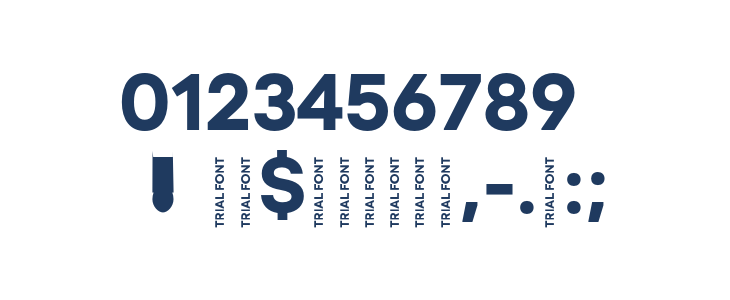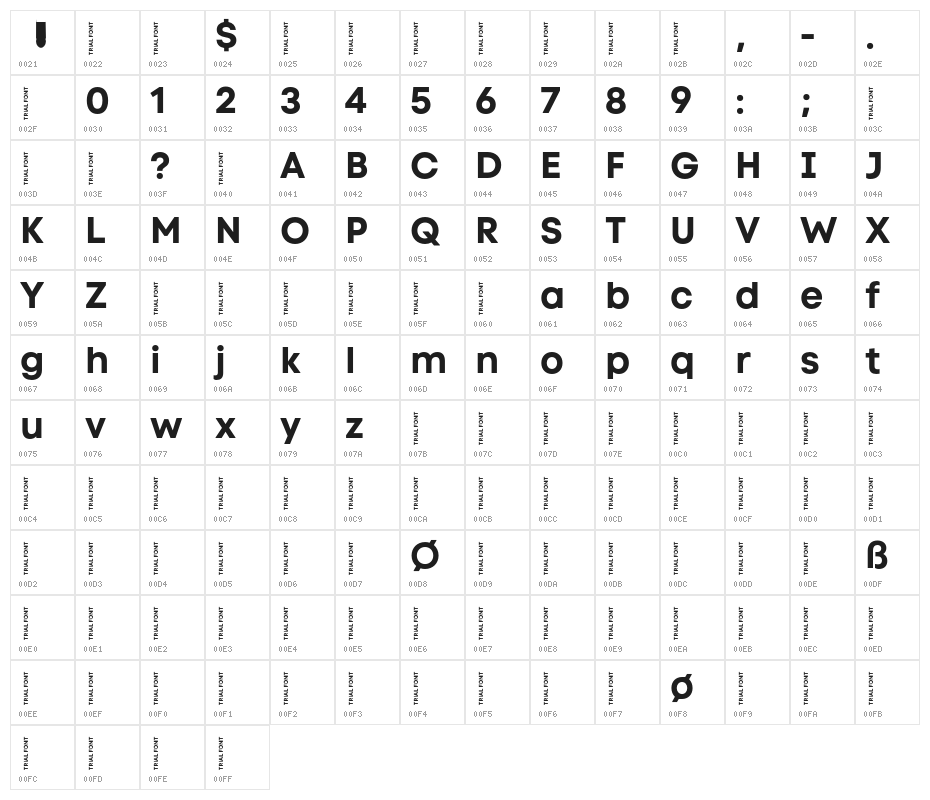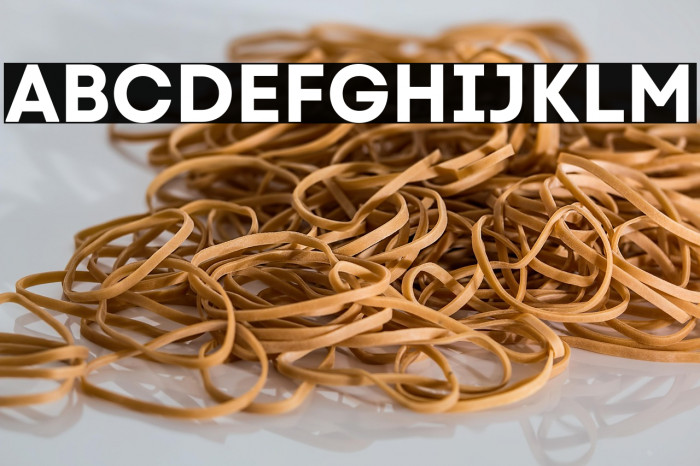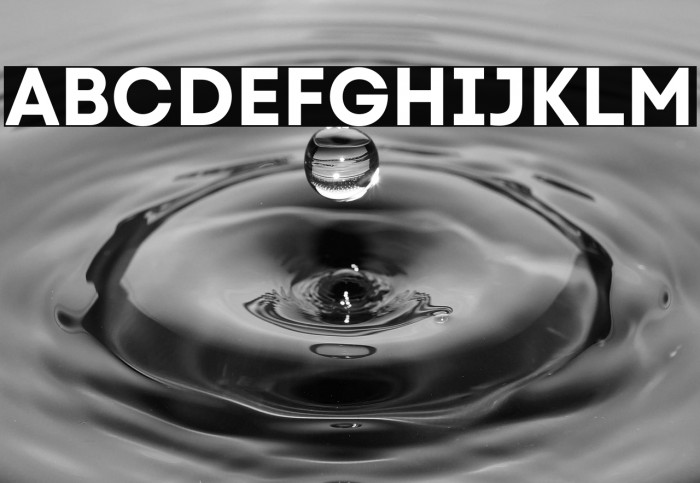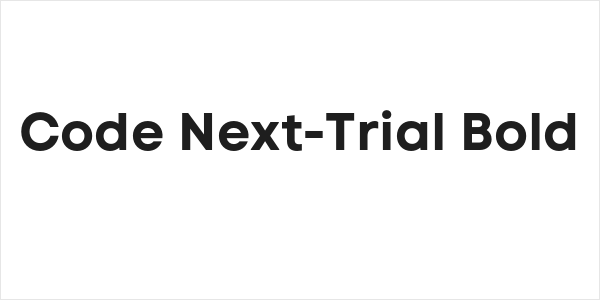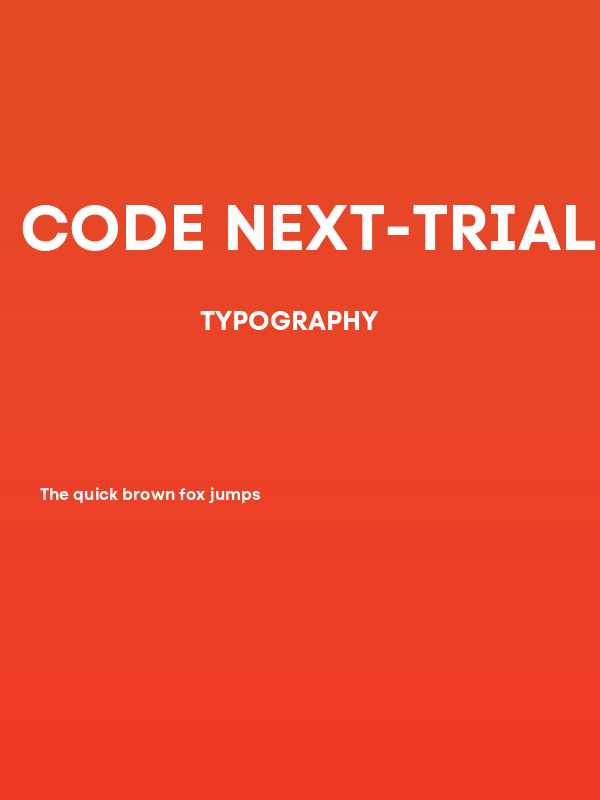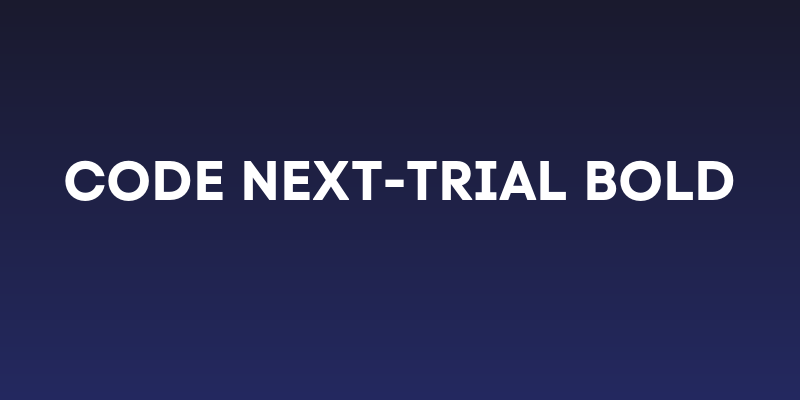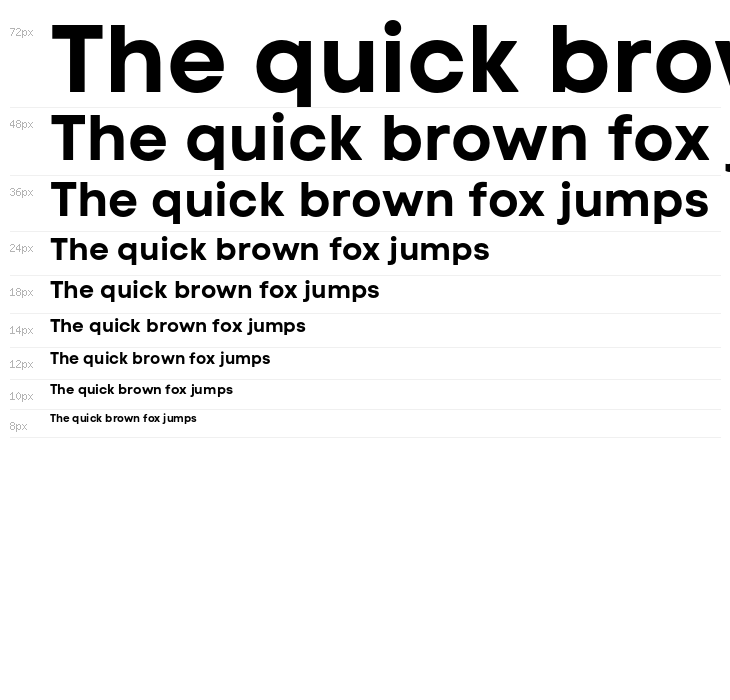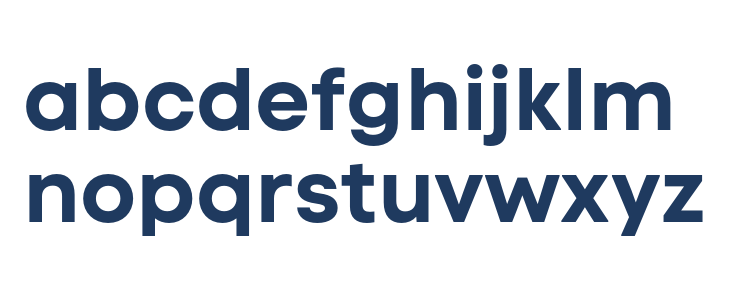
Code Next-Trial Bold Font
Code Next-Trial Bold Description
This font features a bold and modern sans-serif design, characterized by clean lines and a strong presence. The uppercase and lowercase letters maintain a consistent weight, contributing to a uniform appearance. The numerals are equally bold, ensuring readability and impact. Special characters are designed with the same boldness, providing a cohesive look across all glyphs. The overall style is contemporary, making it suitable for a variety of digital and print applications.
| Use Case | Headlines, Logos, Digital media |
| Proposed Projects | Ideal for branding, advertising, headlines, and digital media projects where a strong, modern aesthetic is desired. |